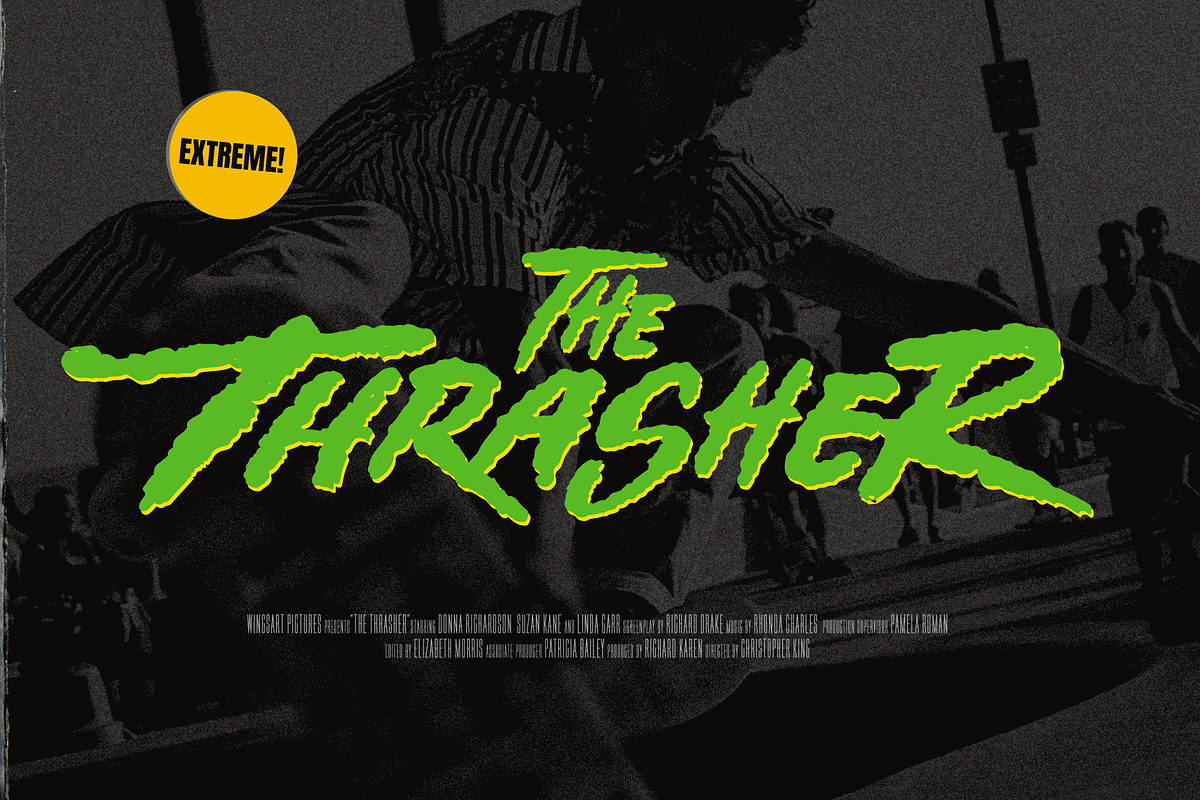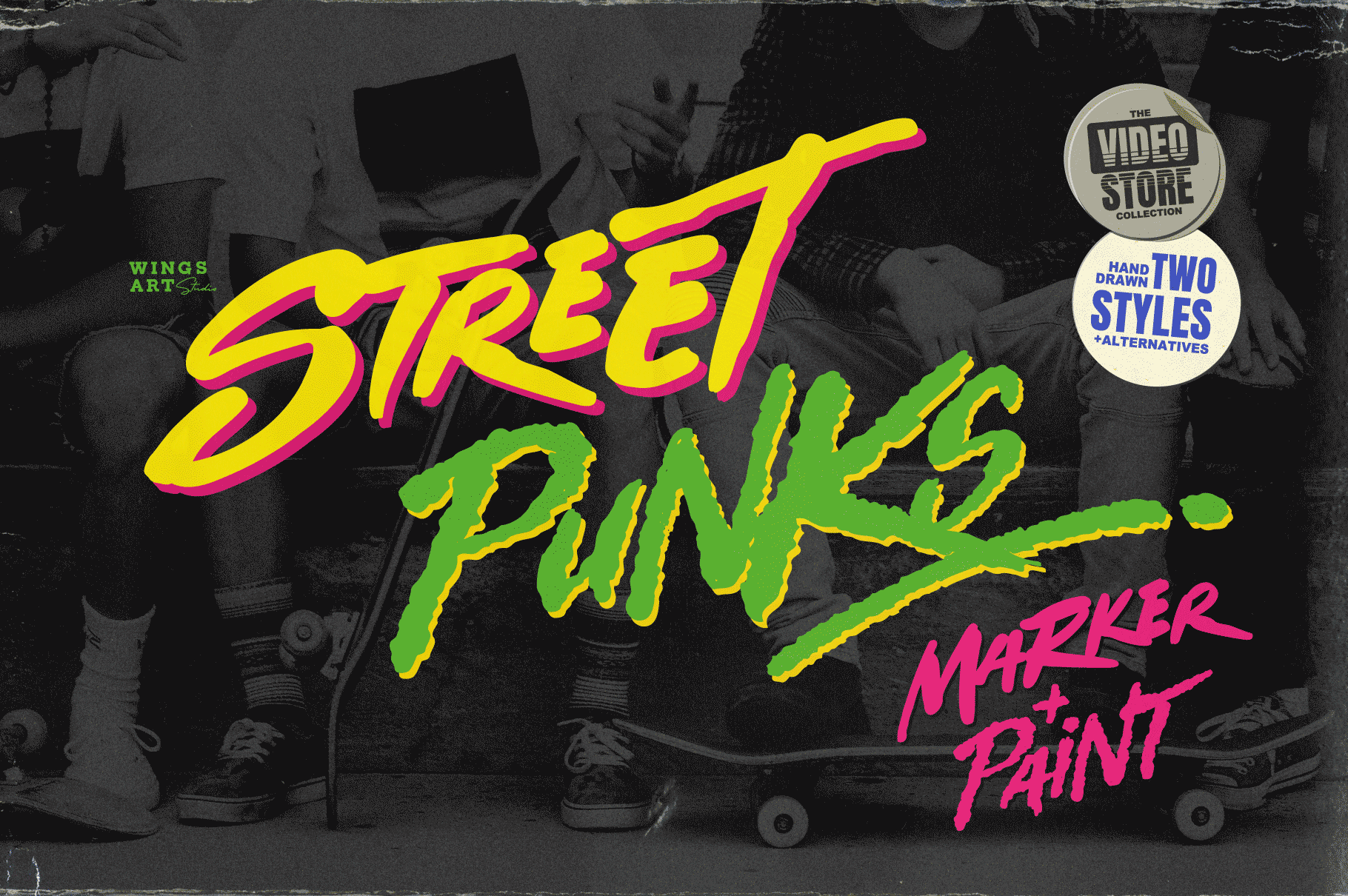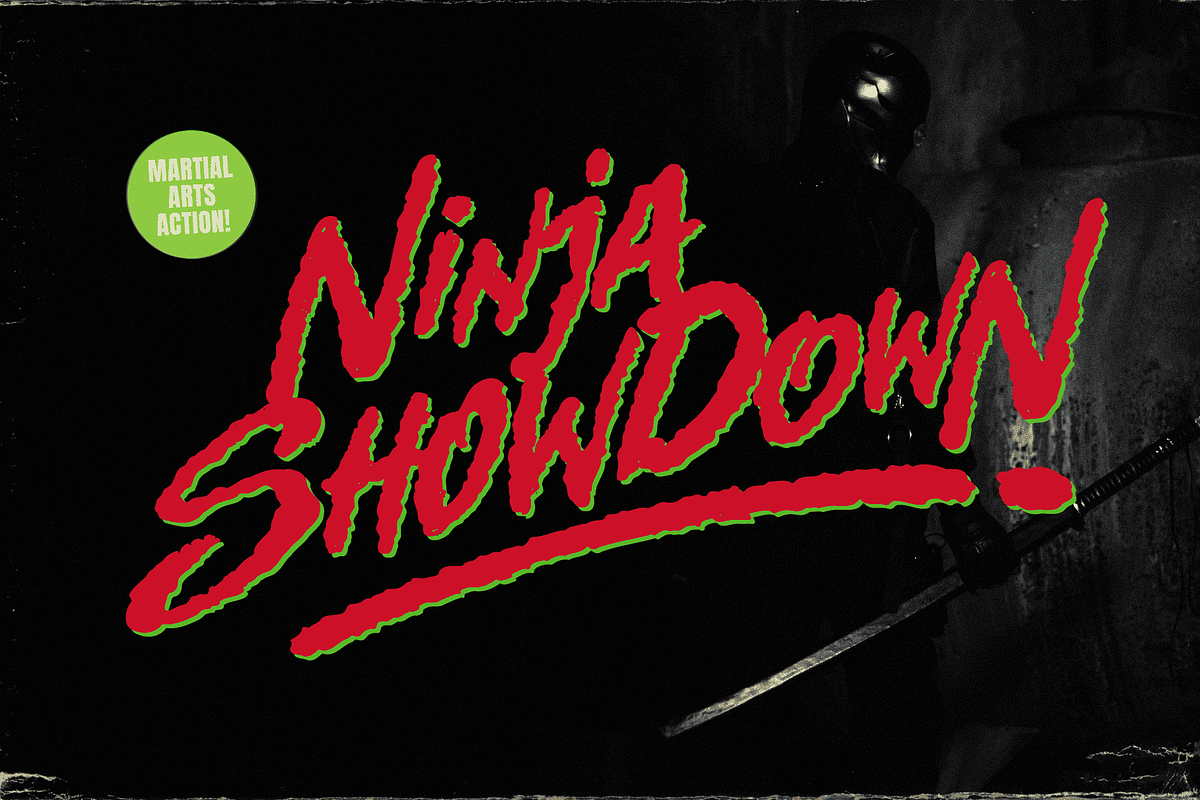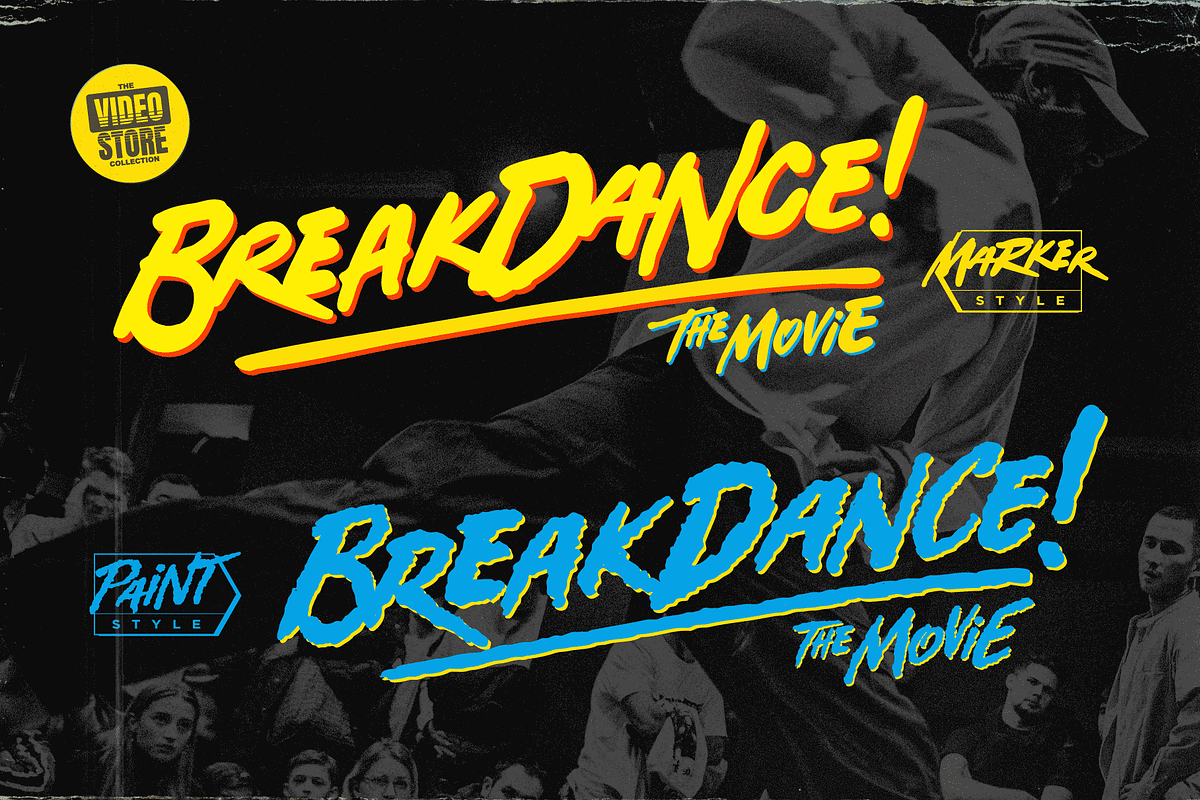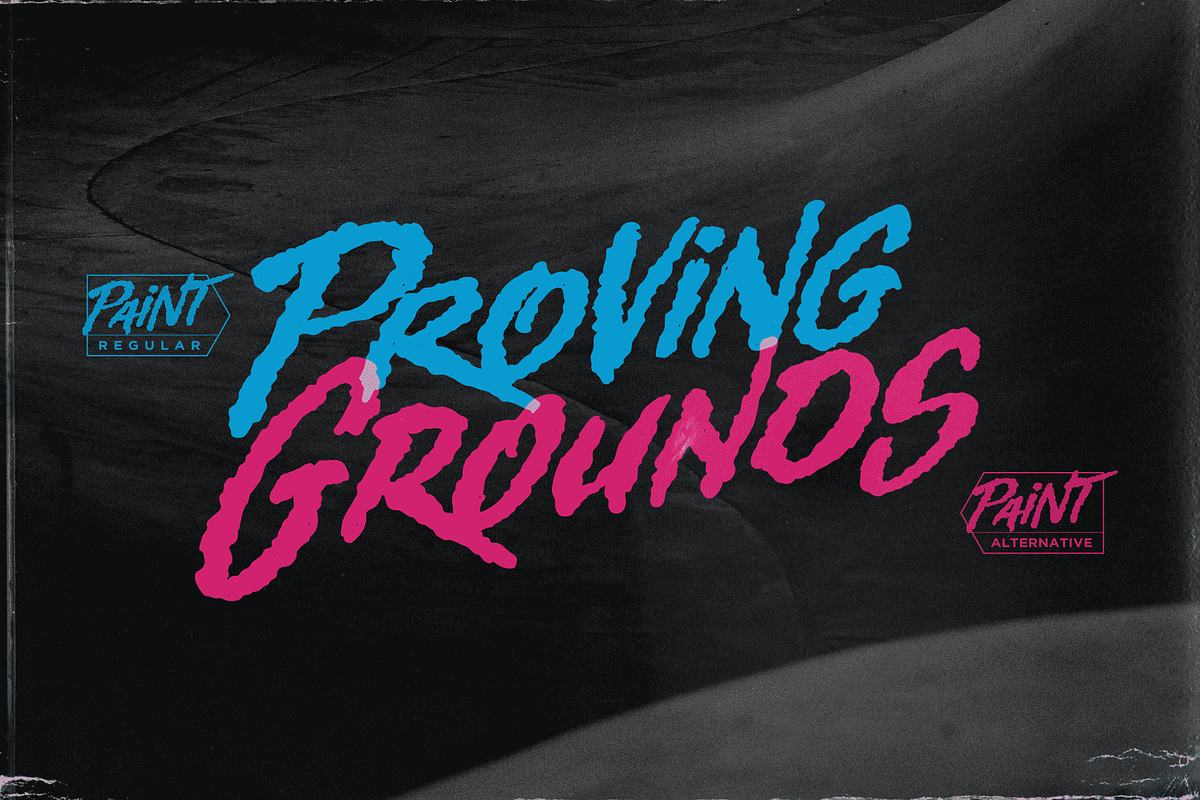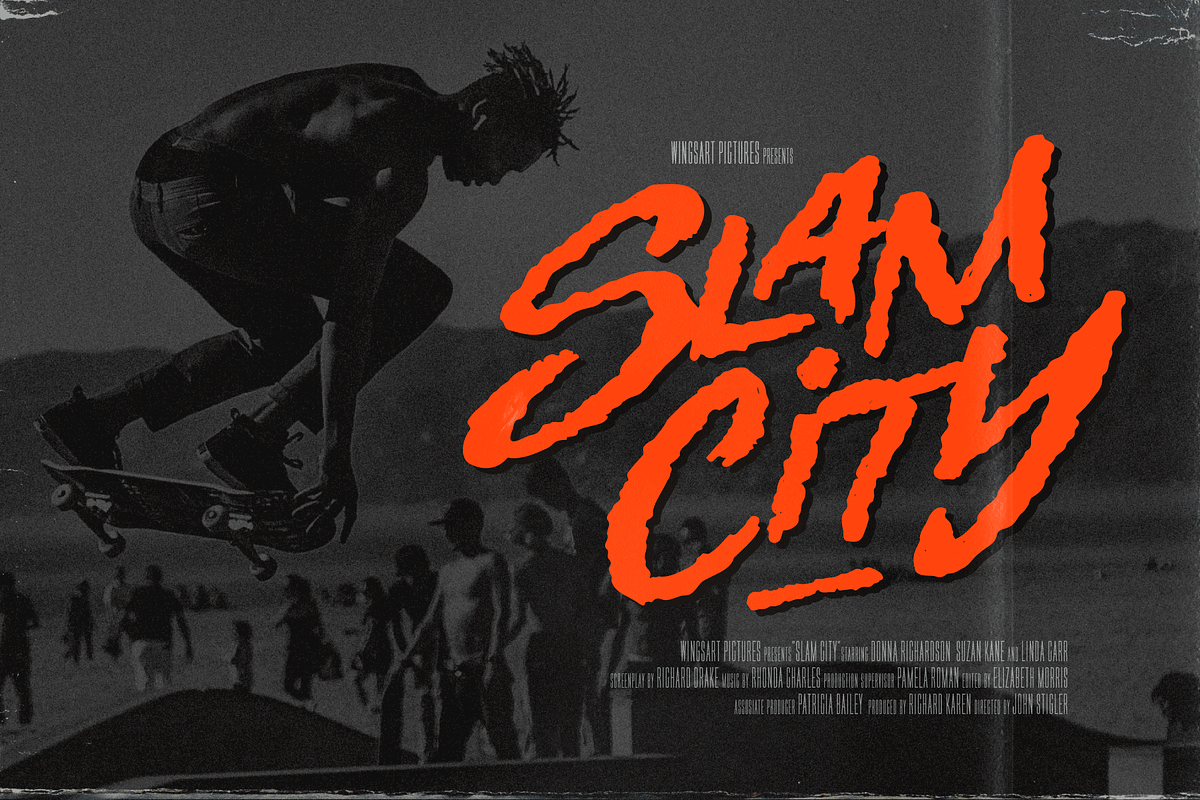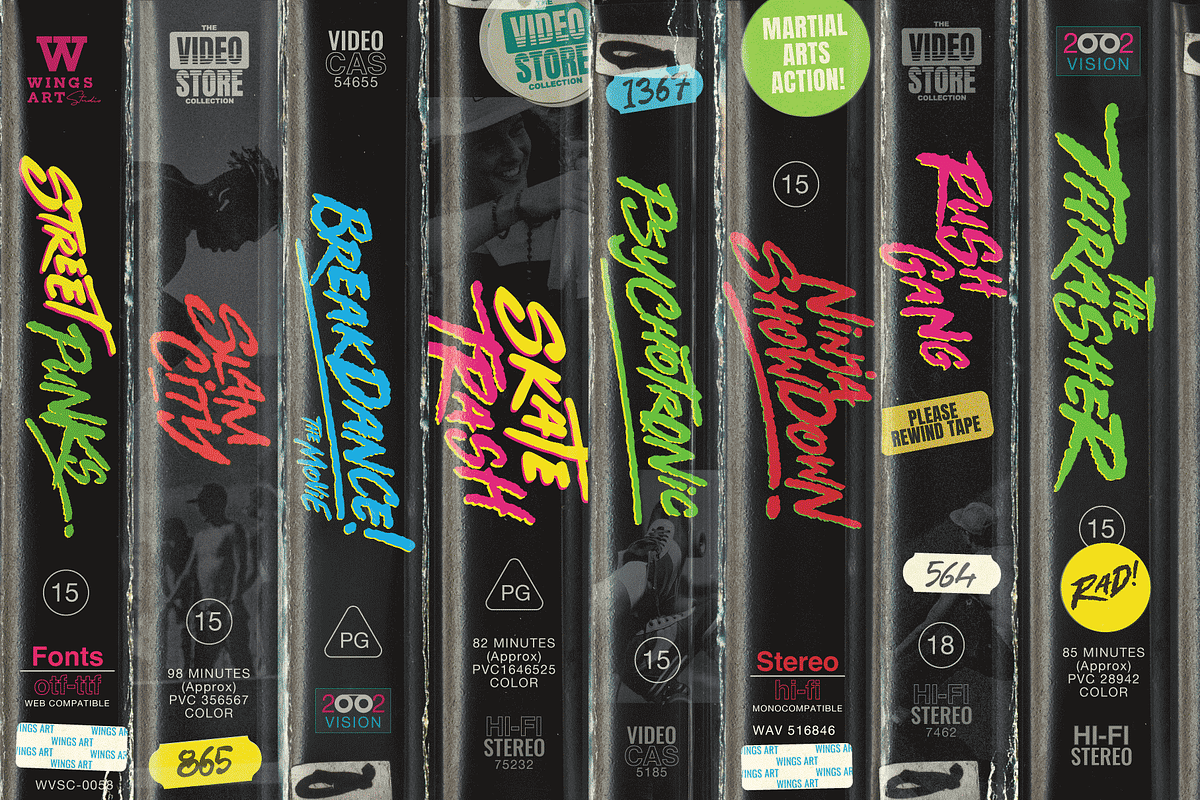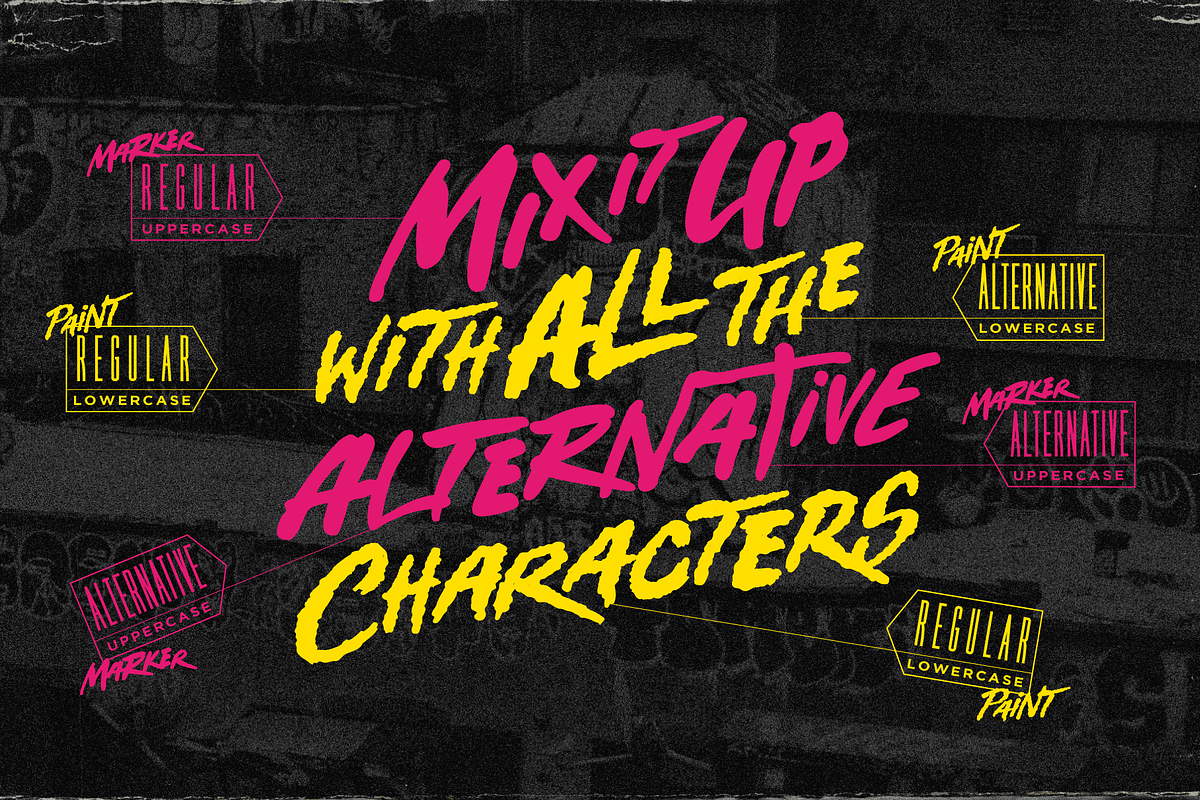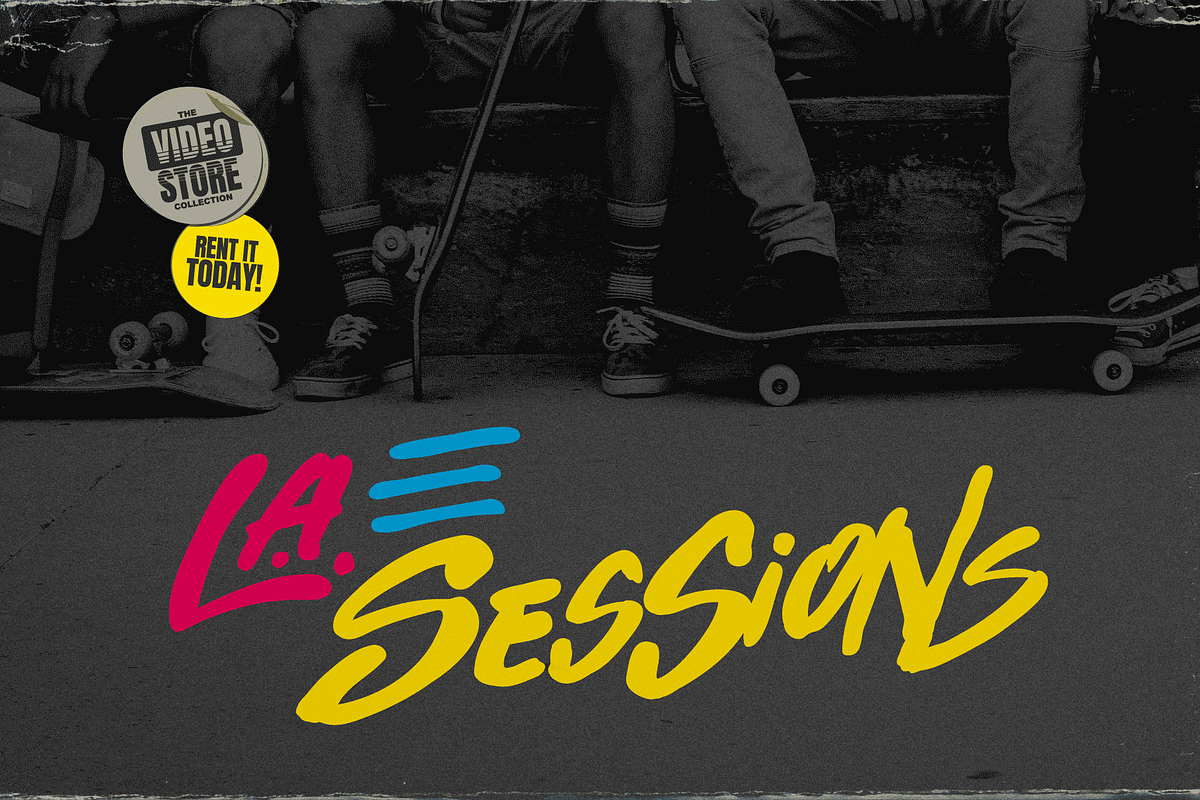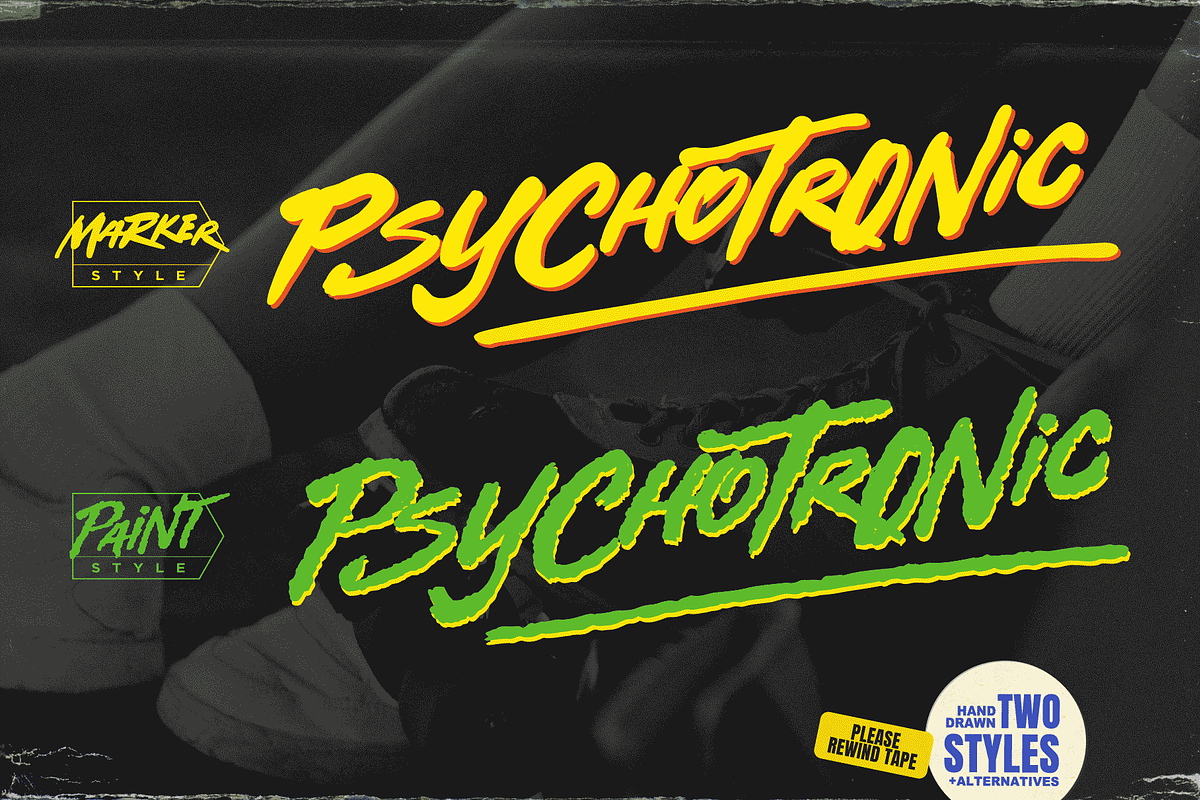
Street Punks: Retro Graffiti Font
Street Punks: Graffiti Inspired Marker Pen and Paint Brush Font
A hand-drawn font inspired by graffiti and skate culture that comes in two pen and paint styles. Plus a shed-load of alternatives for designs that come straight off the pen (or brush).
What happens when you combine graffiti, skate culture and 80s movies? You get Street Punks; a gritty, no-nonsense design that's equally at home on a ripped t-shirt or opening a horror movie (with ninjas!) Choose the slick look of marker pens or the textured roughness of paint brushes. Mix them up, play around and have fun. It's up to you!
Street Punks comes with a complete set of alternatives and underlines with each style, so you’ll never have to repeat an E or an I; the tale-tell signs that give away other hand-made fonts. It also features all-caps uppercase and lowercase characters, along with numerals, punctuation and language support.
It's a font that gives you tools to create some truly unique designs with just a little bit of work. The perfect choice for t-shirts, posters, stickers, movie titles, YouTubers and more!